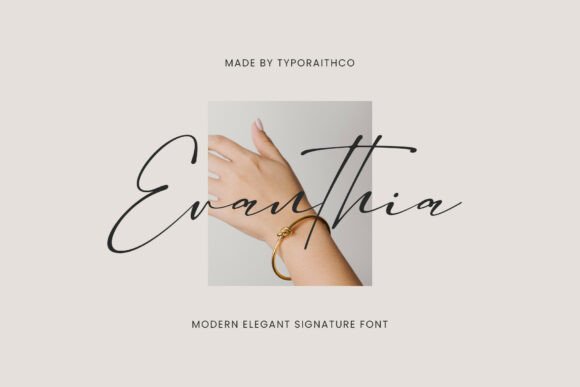
Unleashing the Elegance of Your Brand
Imagine you’re sitting in a cozy coffee shop, surrounded by the soft hum of conversation and the gentle scratch of a pen on paper. You’re brainstorming ideas for your latest creative project, and the words start flowing effortlessly onto the page. You’re in the zone, and the world feels like your canvas. This is where the magic happens, and your unique voice starts to shine.
This is where the Evanthia Font comes in – a modern elegant signature font designed to bring a refined, handwritten touch to your creative projects. With its smooth curves and balanced letterforms, Evanthia adds a touch of luxury and sophistication to any design. Whether you’re a designer, entrepreneur, or creative, Evanthia Font is the perfect tool to elevate your brand and make it stand out in a crowded space.
Evanthia Font Key Features
- Font Family: Evanthia Font is a beautiful, elegant script font designed for various applications.
- Size: The Evanthia Font family includes multiple font weights, ranging from Light to Bold, to cater to different design needs.
- Resolution: The font is optimized for high-resolution displays, making it suitable for use in digital and print media.
- Unique Characteristics: Evanthia Font features flowing connections, elegant swashes, and a touch of sophistication, making it ideal for wedding invitations, branding, and editorial designs.
Evanthia Font Review
I’ve had the chance to work with the Evanthia Font, and I must say it’s a mixed bag. On the one hand, ✨ the font’s elegant and refined design makes it perfect for high-end branding and luxury products. The flowing curves and subtle flourishes add a touch of sophistication that’s hard to replicate with other fonts.
Additionally, ✨ the Evanthia Font’s versatility allows it to be used in a wide range of contexts, from fashion to finance. It’s a great choice for designers looking to add a bit of glamour to their work.
- ⚠️ The font’s high-end aesthetic may not be suitable for every project. It’s a bit too fancy for casual or informal designs.
- ⚠️ Some users may find the font’s thin lines and subtle details difficult to read at smaller font sizes.
- ⚠️ The Evanthia Font is not as widely supported as some other fonts, which may cause compatibility issues in certain software or systems.
Overall, I’d say the Evanthia Font is a solid choice for designers who want to add a touch of luxury to their work. While it has its limitations, the font’s unique design and versatility make it a great option for the right projects. With a bit of care and attention to detail, the Evanthia Font can be a real showstopper.
Getting the Most Out of Evanthia Font
To get the most out of Evanthia Font, consider the following tips:
Use Evanthia Font in combination with other elegant fonts for a sophisticated look.
Use Evanthia Font in headings and titles to add a touch of sophistication.
Evanthia Font is ideal for:
Formal business documents and presentations.
Magazine and book covers.
Alternatives to Evanthia Font for Designers
Playfair Display is a luxurious, high-end serif font ideal for use in headings, titles, and other prominent text. It’s perfect for creating a sophisticated and elegant look. When to use: Fashion magazines, high-end branding, and luxury product packaging. Compared to Evanthia Font, Playfair Display has a more classical and formal feel, with intricate details and flourishes that give it a touch of sophistication.
Montserrat is a sans-serif font designed for urban environments, perfect for use in modern and minimalist designs. It’s highly legible and versatile, making it suitable for a wide range of applications. When to use: Tech startups, urban branding, and modern product packaging. Compared to Evanthia Font, Montserrat has a more modern and clean feel, with a focus on legibility and simplicity.
Does the Evanthia Font support languages other than English?
Yes, the Evanthia Font supports a wide range of languages, including Latin, Cyrillic, and Greek scripts. It also includes support for various diacritical marks and special characters. Please note that language support may vary depending on the font format and the operating system being used.